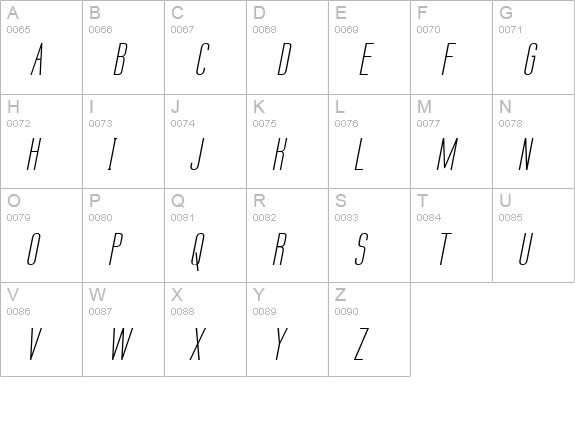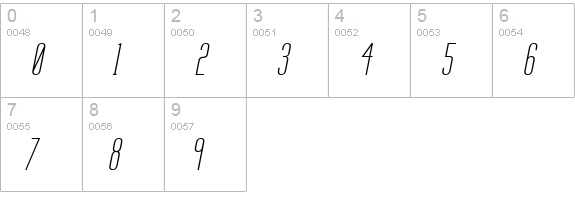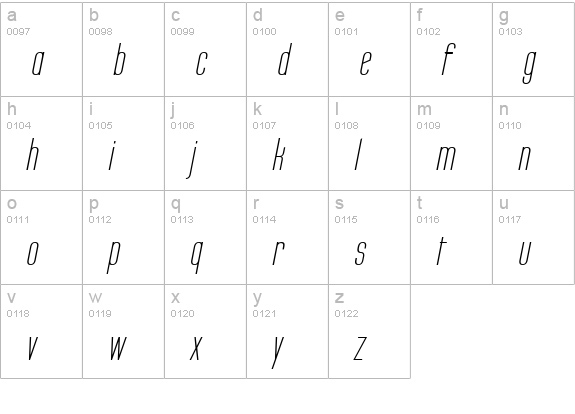
Labtop Secundo Italic is a distinctive, italic variant in the Labtop typeface family \xE2\x80\x94 well suited to design and typography projects.
Introducing Labtop Secundo Italic font, a sleek and stylish typeface that exudes elegance and sophistication. With its slanted design and refined curves, this font is perfect for adding a touch of modernity to any project. Labtop Secundo Italic is versatile and can be used for a variety of purposes, from branding to editorial design. The best part? Labtop Secundo Italic font is available for free download at FontsMarket.com. Now you can elevate your designs with this premium font without breaking the bank. Don't miss out on the opportunity to enhance your projects with the timeless beauty of Labtop Secundo Italic font. Download it today and let your creativity shine!